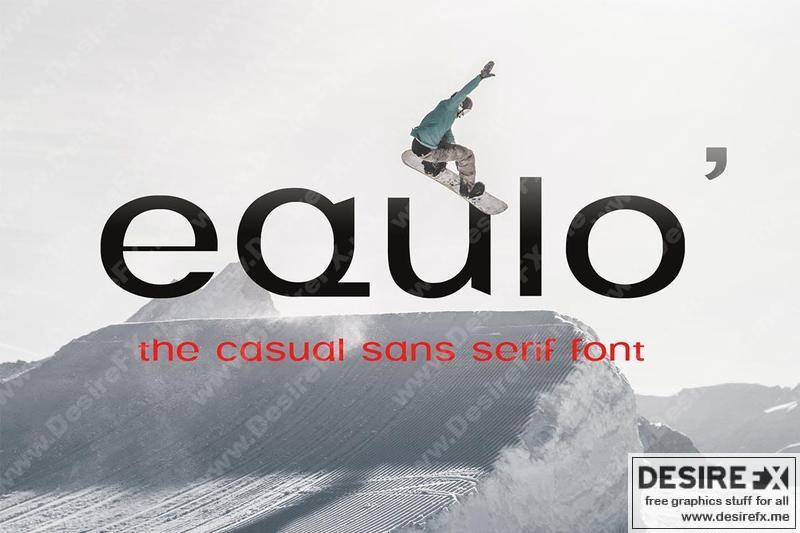
Equlo – Sans Serif Font 6V8J3RK
Introducing Equlo, an modern, simple, and casual sans serif font. So perfect for you who needs a typeface for logo designs, magazine, social media, brochure, and many more.
- Uppercase
- Lowercase
- Numerals